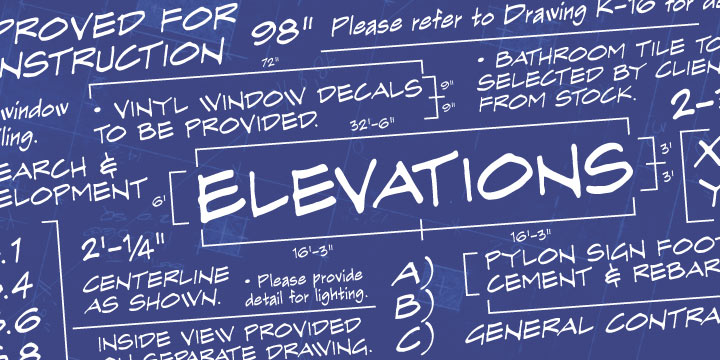
Elevations BB Font is perfect for architectural firms, mountain resort branding, elevator companies, high-rise development marketing, surveying services, topographical mapping projects, altitude-based fitness centers, luxury penthouse promotions, and any project requiring typography with ascending sophistication and elevated design aesthetics.
What makes Elevations BB Font exciting is its ascending grandeur that captures the essence of vertical achievement and elevated perspectives with letterforms that seem to rise majestically like towering skyscrapers and mountain peaks reaching toward infinite heights. This inspiring typeface embodies the human drive to reach higher ground with structured geometry that reflects the engineering precision required for vertical construction and the ambitious vision of those who dare to build upward. The font's elevated character and architectural sophistication make it perfect for projects celebrating achievement, aspiration, and the transformative power of reaching new heights in business and life.
The Elevations BB Font family includes regular and bold weights, featuring complete uppercase and lowercase alphabets, numerals, punctuation marks, and elevation-inspired design elements. The font maintains consistent vertical elegance throughout all weights while ensuring excellent readability for both towering headlines and elevated text applications in architectural and achievement-focused contexts.
Whether you're designing for construction companies, creating mountain tourism materials, or developing achievement-oriented branding with elevated aesthetics, Elevations BB Font Free Download delivers unmatched vertical sophistication and aspirational authority to your projects. This exceptional typeface transforms ordinary text into powerful expressions of upward momentum that celebrate the courage to climb higher and the vision to reach unprecedented heights. The font's ascending character makes it ideal for architectural firms, luxury developments, and achievement-focused organizations. Download this remarkable font today and bring the inspiring power of elevated achievement to your design projects with authentic vertical sophistication and elevation excellence.